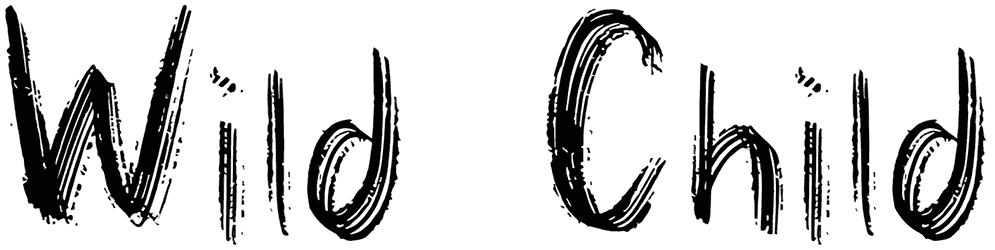
Wild Child Font
Since selecting a suitable script font for designing exclusive graphic content would be a little bit of juggling, we would like to advise you to pick up a glamorous masterpiece the such as the Wild Child, as your reliable assistant.
This brush font comes with angular letters, thus it can bring a feeling of grunge, tenderness, smudginess, or momentum to your editorial projects. This masterpiece can be perfectly matched with your brochures, magazines, applications, street posters, and digital banners.